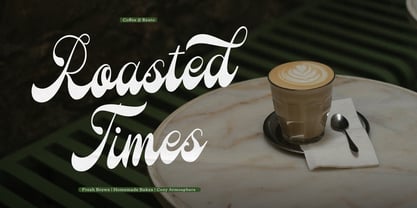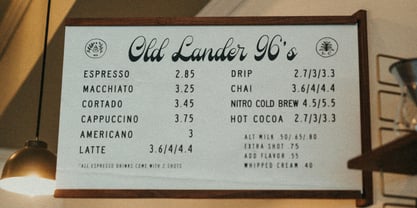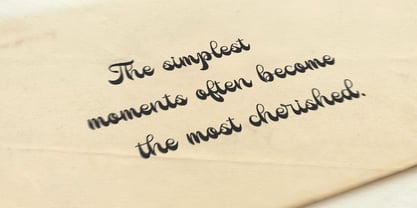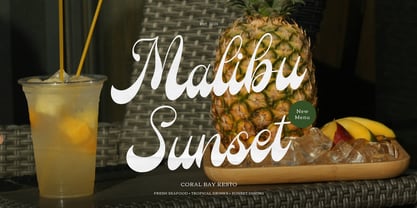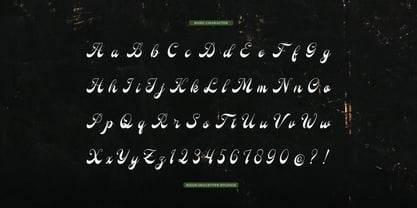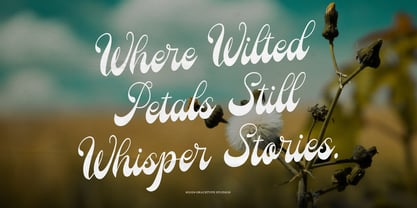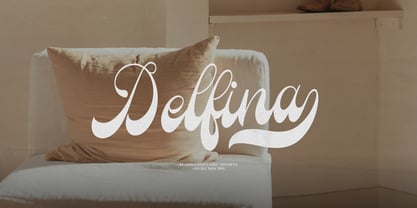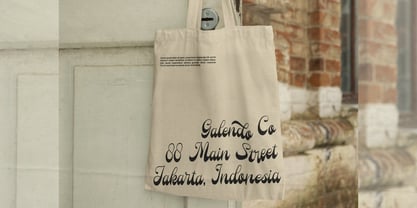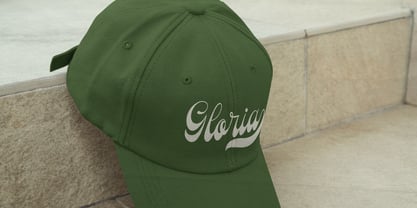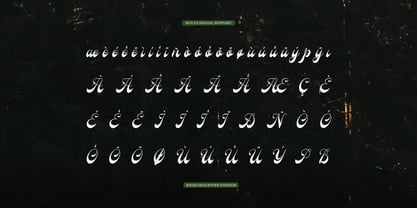
Bastille Fields
Bastille Fields | Vintage Script, from Gracetypestudio, suitable for any projects such as: logos, branding projects, homeware designs, product packaging, mugs, quotes, posters, shopping bags, t-shirts, book covers, name card, invitation cards, greeting cards, label, photography, watermark, special events, and all your other lovely projects that need a Vintage taste.